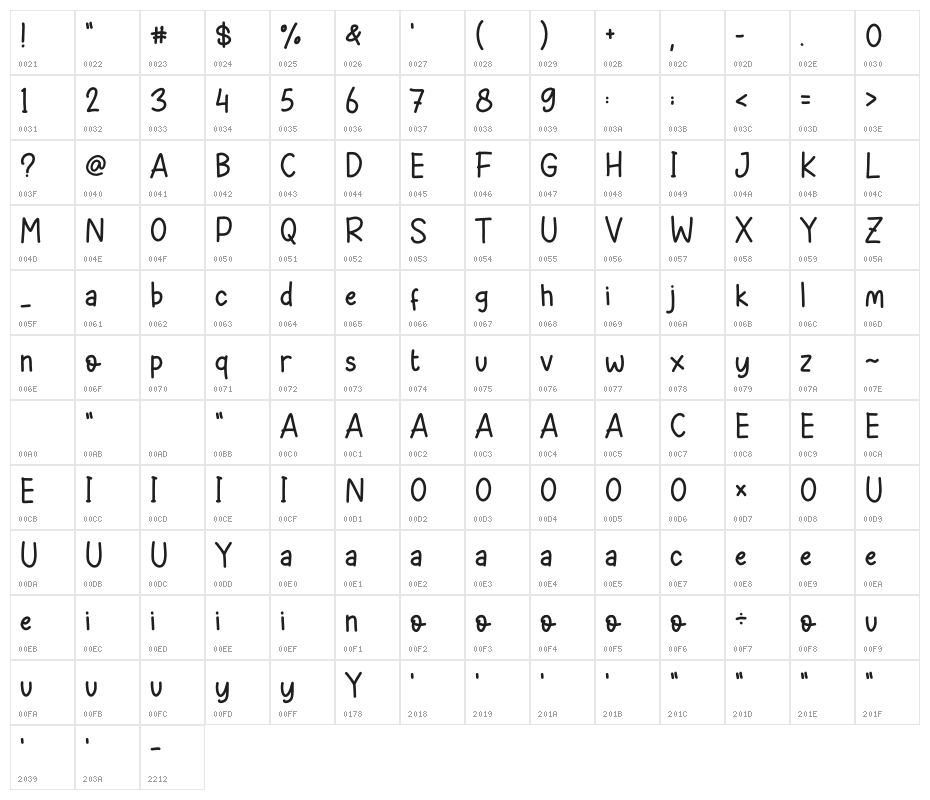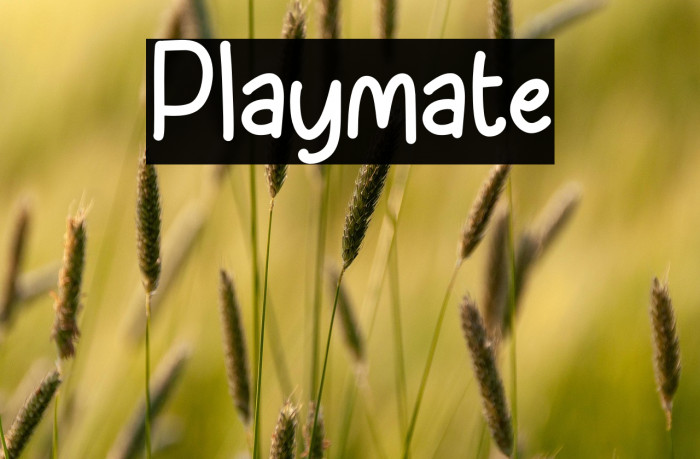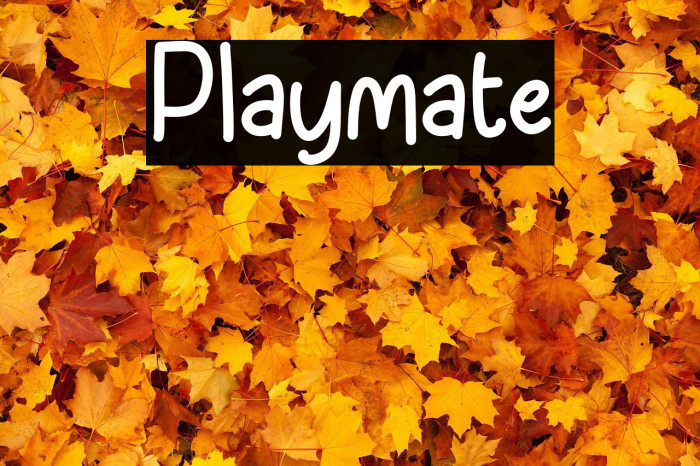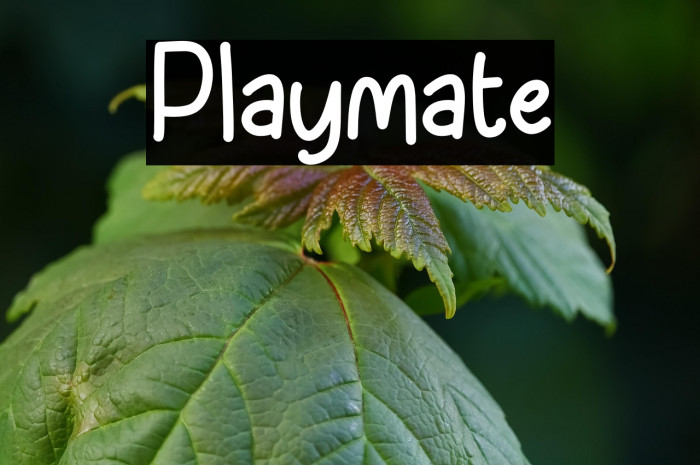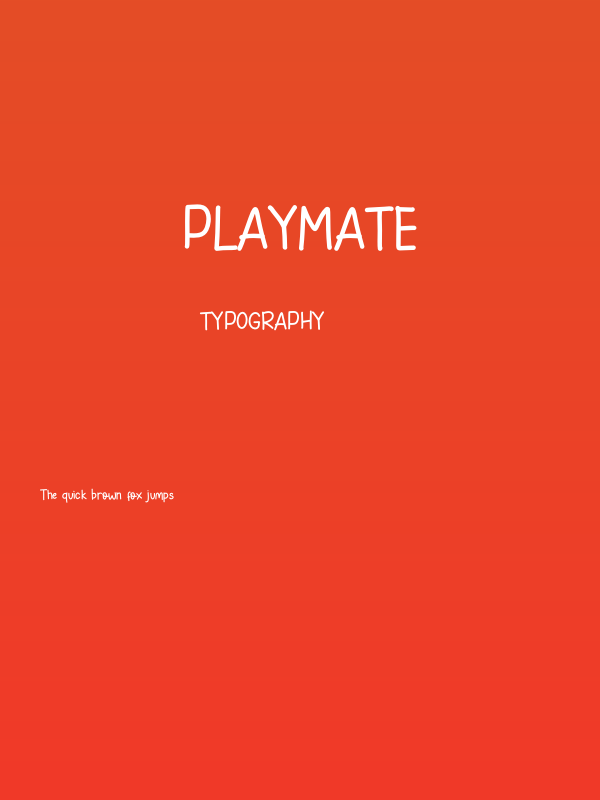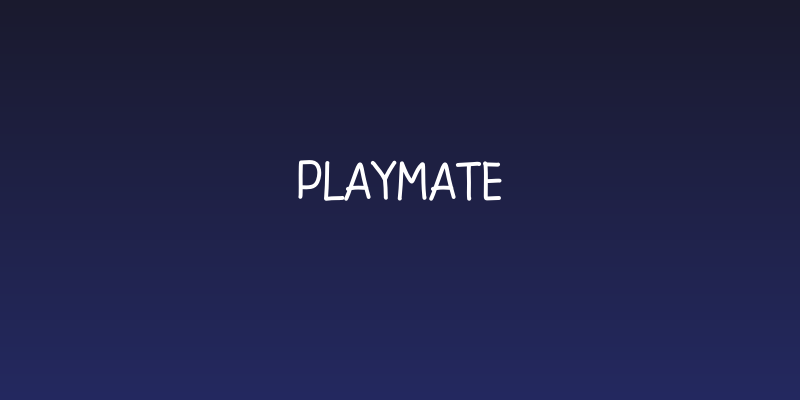
Playmate Font
Playmate Description
This playful and whimsical font exudes a casual and friendly vibe, characterized by its rounded and slightly irregular letterforms. The strokes are consistent in width, giving it a uniform appearance, while the slight tilt and uneven baseline add a touch of informality. The font's handwritten style is approachable and easy to read, making it suitable for a variety of creative projects. Its simplicity and charm make it ideal for conveying a sense of fun and lightheartedness.
| Overall Style | Casual, Playful |
| Use Case | Headlines, Informal text, Creative projects |
| Proposed Projects | Ideal for children's books, greeting cards, playful branding, and informal invitations. |